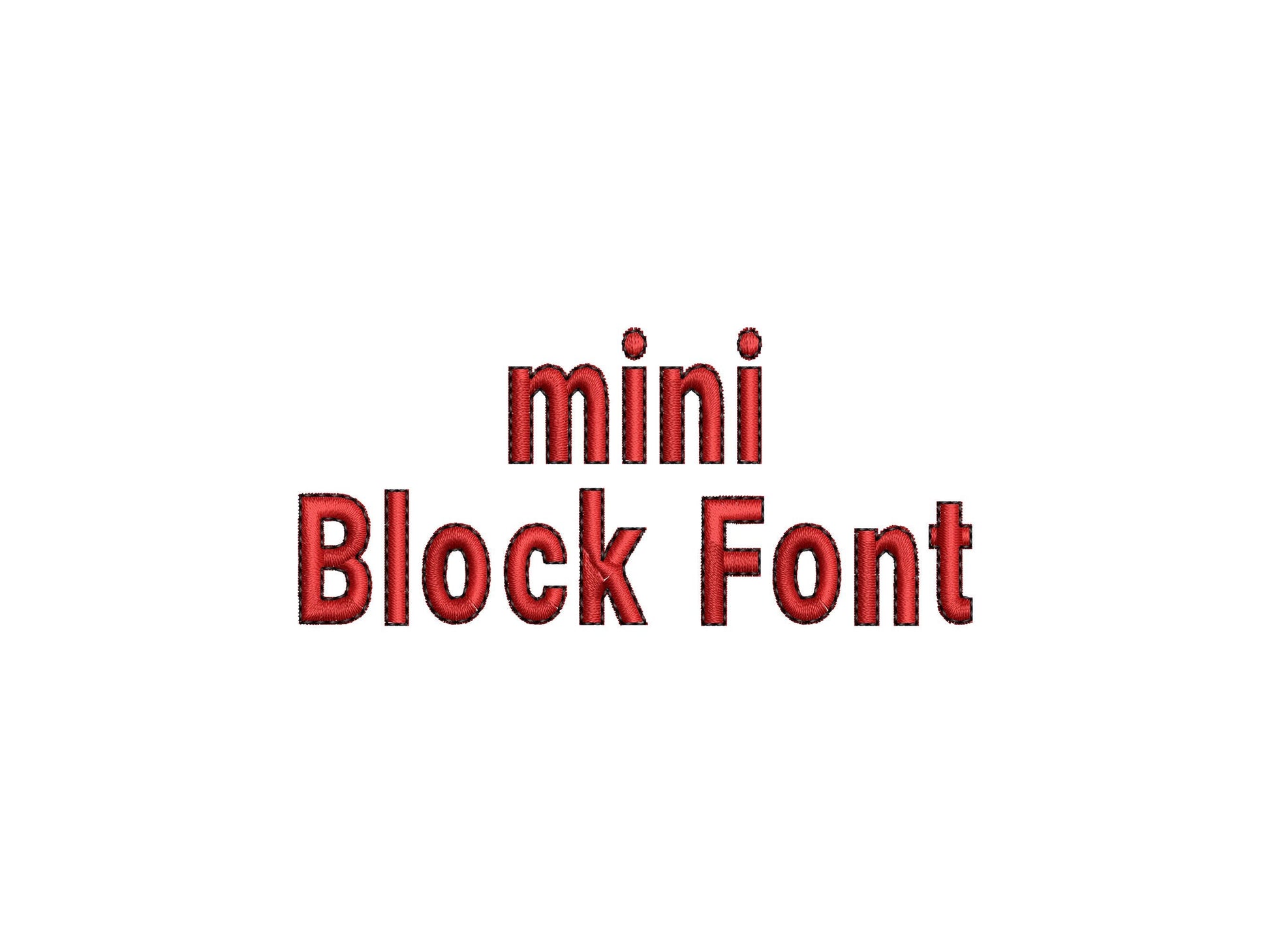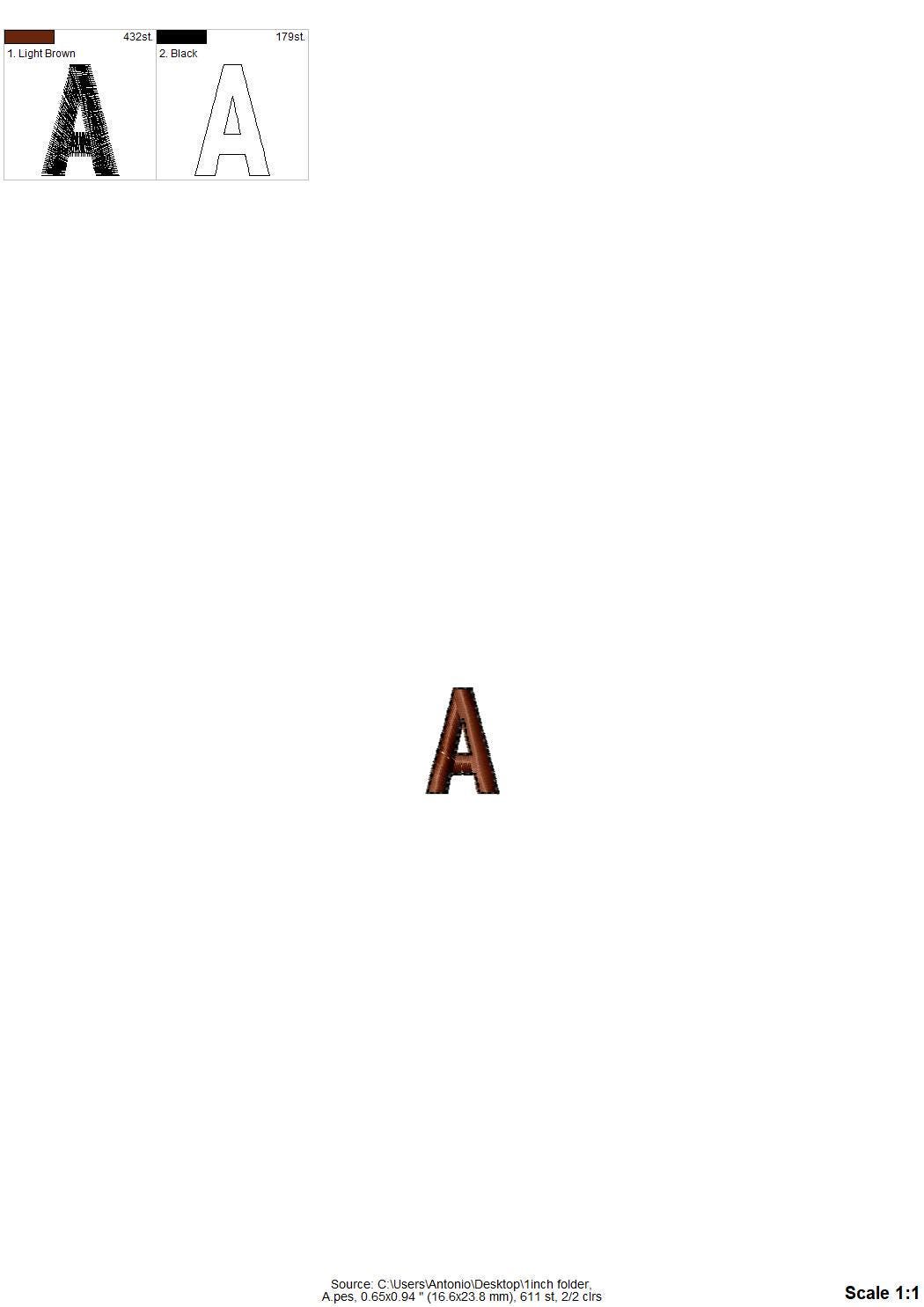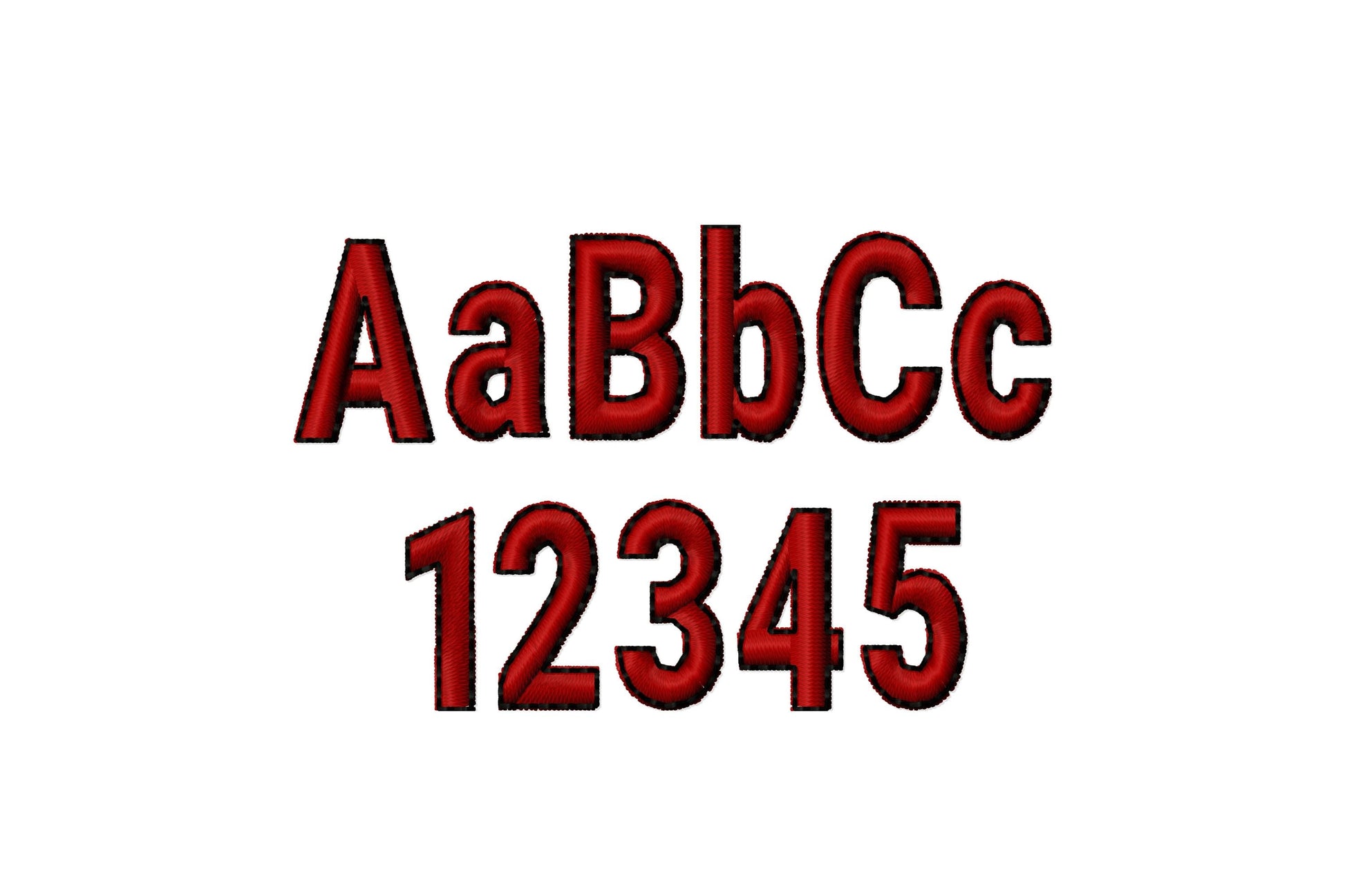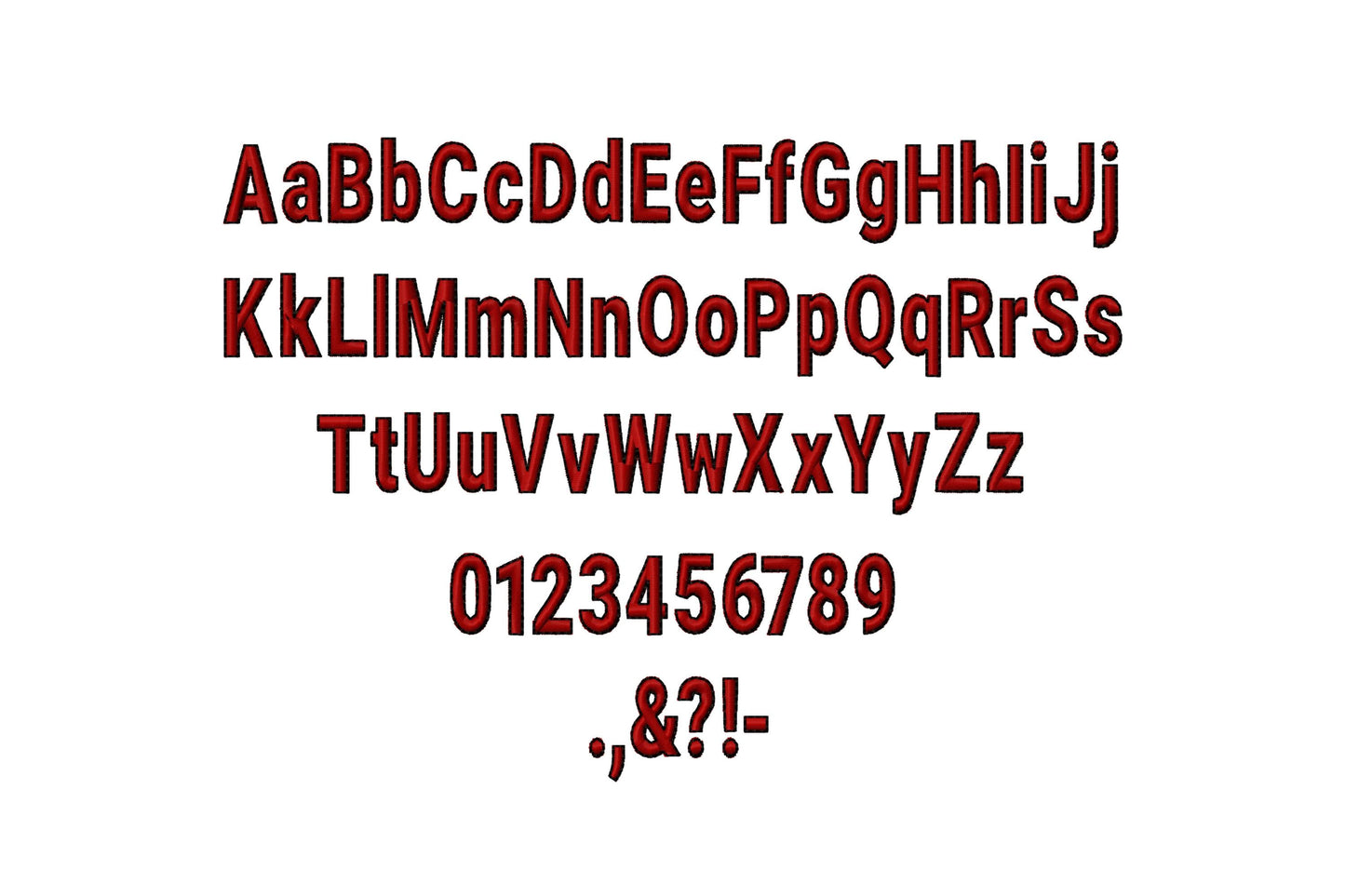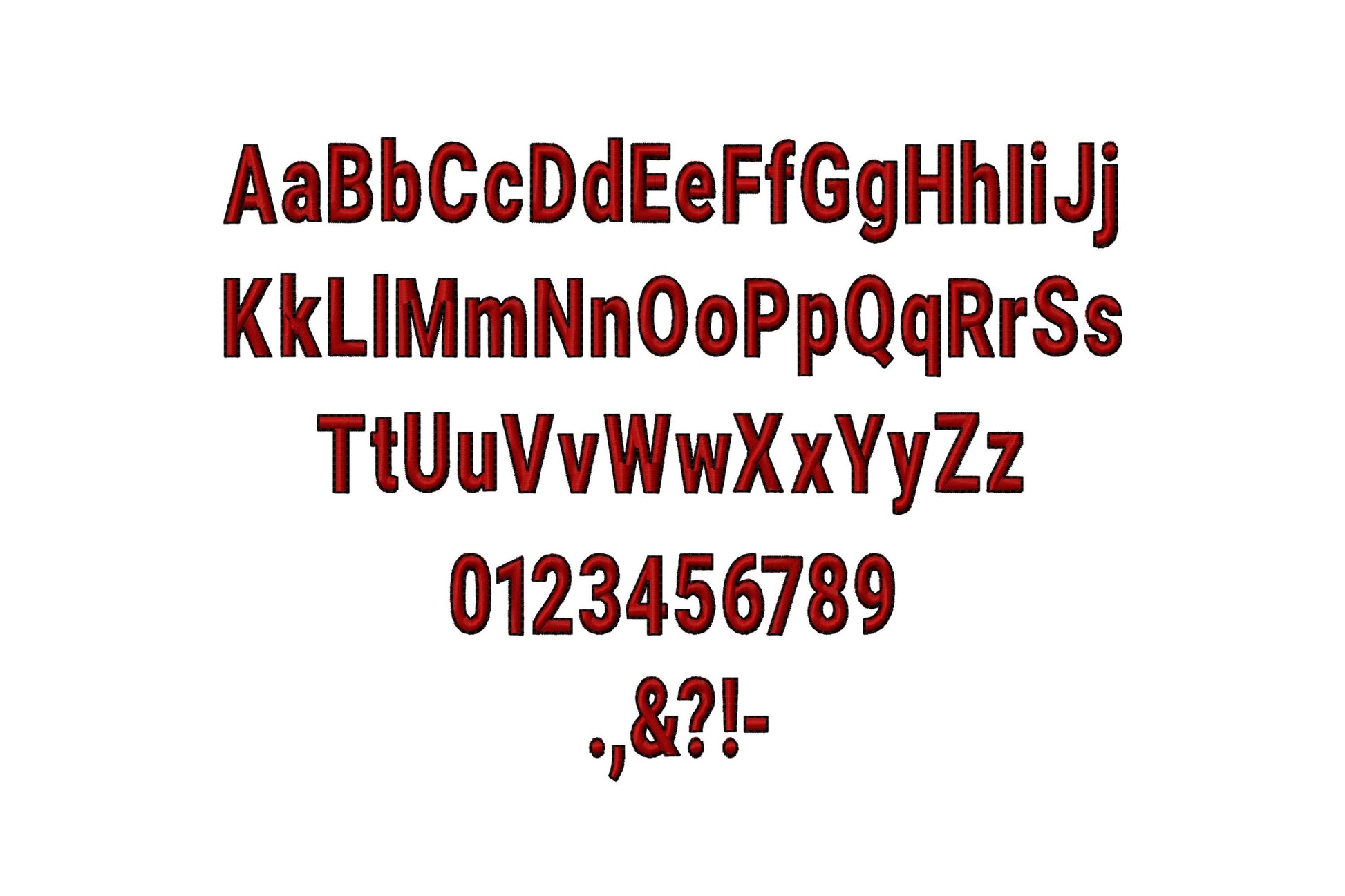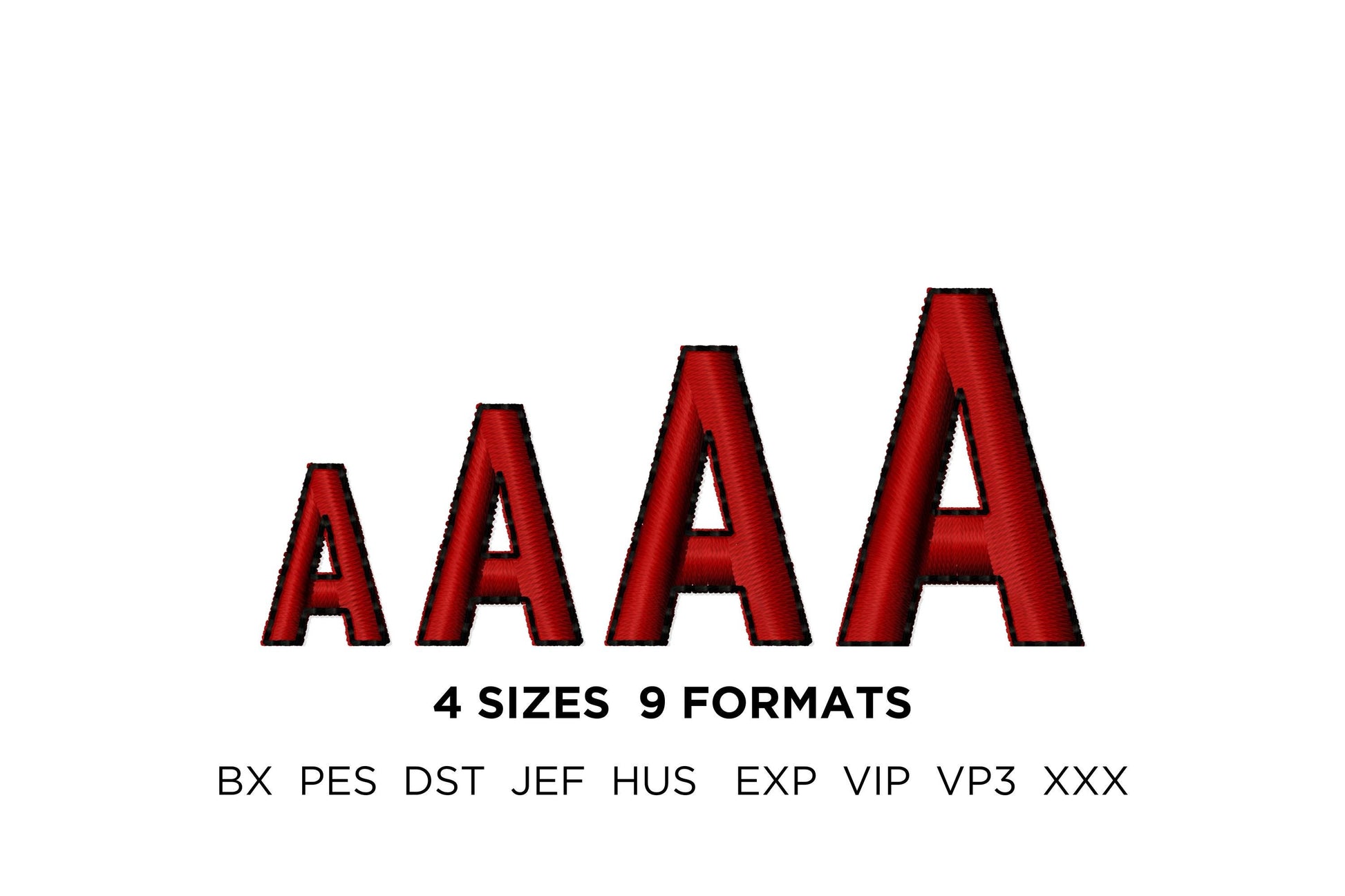
Or click to open the linkA mini block font in satin stitch with an outline, for tiny names, dates and labels on baby items, tags and small projects.
Uppercase and lowercase letters, numbers and punctuation in four small sizes: 0.6, 0.8, 1 and 1.2 inches.